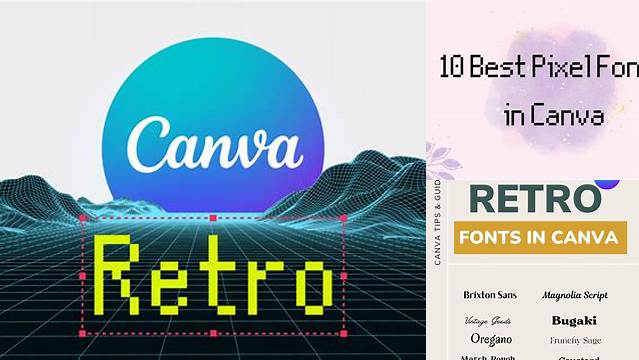
Best Pixel Fonts In Canva: A Retro Design Guide
Hey guys! Are you looking to infuse your designs with a touch of retro charm? Then you've come to the right place! In this article, we're diving deep into the world of pixel fonts, those wonderfully blocky and nostalgic typefaces that instantly transport us back to the golden age of 8-bit video games and early computer interfaces. And guess what? We're focusing on the best pixel fonts you can use right inside Canva, the super popular and user-friendly design platform. So, buckle up and get ready to pixelate your projects!
What are Pixel Fonts and Why Use Them?
Pixel fonts, also known as bitmap fonts, are digital typefaces where each character is composed of individual pixels. This gives them that distinctive blocky, low-resolution appearance that we associate with retro technology. The magic of pixel fonts lies in their ability to evoke a specific era and aesthetic. Think classic video game titles, old-school computer interfaces, and the early days of the internet. By incorporating pixel fonts into your designs, you can instantly tap into these nostalgic feelings and create a unique visual identity.
When you think about why use pixel fonts, several compelling reasons come to mind. First and foremost, they're fantastic for creating a retro or vintage vibe. If you're designing a poster for an 80s-themed party, a logo for a gaming website, or a social media graphic that screams old-school cool, a pixel font is your best friend. Secondly, pixel fonts can add a touch of playfulness and quirkiness to your designs. Their blocky nature and inherent simplicity make them a fun and approachable choice for projects that need a bit of personality. Furthermore, pixel fonts can be incredibly effective for conveying technical or digital themes. If you're designing a website or app interface, or creating graphics related to technology or coding, a pixel font can help reinforce that connection. In addition, using pixel fonts in your designs helps you stand out. In a world saturated with sleek, modern fonts, a pixel font can be a refreshing and eye-catching alternative. It's a great way to grab attention and make a lasting impression. These fonts can also be incredibly versatile. While they're often associated with retro designs, they can also be used in more contemporary contexts to add a touch of irony or contrast. Imagine a sleek, minimalist website with a pixel font used for the headings – it's an unexpected and memorable combination. Finally, pixel fonts can be a great way to pay homage to the history of graphic design and digital culture. They're a visual reminder of the early days of computing and gaming, and using them in your designs can be a nod to that legacy.
To make the most of pixel fonts, you need to consider their legibility. Due to their low-resolution nature, they can be challenging to read at small sizes. Therefore, it's generally best to use them for headlines, logos, or other display elements where the text is larger. Avoid using pixel fonts for long blocks of body text, as this can strain the reader's eyes. The best way to improve legibility is by playing with spacing, sizing, and color contrasts. Give your letters room to breathe. Increase the letter spacing and line height to prevent the characters from crowding each other. A clear visual contrast between the font color and the background is also essential. Avoid using similar colors, as this can make the text difficult to read. Think about the overall tone and message of your design when choosing a pixel font. Some pixel fonts have a more playful and whimsical feel, while others are more serious and technical. Select a font that aligns with the overall aesthetic you're trying to achieve. Don't be afraid to experiment. Try different pixel fonts in your designs and see what works best. You might be surprised at the unique and creative combinations you can come up with. One of the best aspects of using pixel fonts in Canva is the ease of experimentation. With a simple click, you can try different fonts and immediately see how they look in your design. This makes it easy to fine-tune your choices and create the perfect pixelated masterpiece.
Top Pixel Fonts Available in Canva
Now, let's get to the fun part: exploring the best pixel fonts that Canva has to offer! Canva boasts a fantastic library of fonts, including a solid selection of pixelated options that are perfect for your retro-inspired projects. Here are some of my absolute favorites, categorized for your convenience:
Classic & Clean Pixel Fonts
Press Start 2P: This is arguably the quintessential pixel font, instantly recognizable from countless video game title screens. It's clean, bold, and highly legible, making it a great choice for headlines, logos, and anything that needs a strong retro statement. The Press Start 2P font is a staple in the pixel font world, and for good reason. Its classic design is instantly recognizable and evokes a sense of nostalgia for the golden age of video games. The bold, blocky letters are highly legible, making it suitable for a wide range of applications, from headlines and logos to website banners and social media graphics. One of the key strengths of Press Start 2P is its versatility. While it's undeniably retro, it can also be used in more contemporary designs to add a touch of playfulness or irony. Imagine using it for the title of a modern mobile app, or for the branding of a tech startup. The contrast between the old-school font and the cutting-edge context can create a unique and memorable visual identity. Another great aspect of Press Start 2P is its availability. It's a Google Font, which means it's free to use for both personal and commercial projects. This makes it an accessible choice for designers of all levels, from students and hobbyists to professionals. And, of course, it's readily available in Canva, making it easy to incorporate into your designs with just a few clicks. When using Press Start 2P, consider the overall tone and message of your design. It's a font that commands attention, so it's best suited for projects where you want to make a bold statement. Avoid using it for long blocks of body text, as its blocky nature can be tiring to read in large quantities. Instead, use it sparingly for headlines, subheadings, and other display elements. You can also experiment with different color combinations and background treatments to enhance the impact of Press Start 2P. Try pairing it with vibrant colors and geometric shapes for a truly retro feel, or use it in a monochrome design for a more modern and minimalist look. The possibilities are endless!
VT323: If you're aiming for that authentic computer terminal look, VT323 is your go-to font. It's slightly more condensed than Press Start 2P, giving it a more technical and utilitarian vibe. This VT323 font nails the old-school computer terminal look. It's like looking at text straight from a vintage monitor! The font's slightly condensed design gives it a technical and utilitarian feel, perfect for projects that need a touch of digital authenticity. Think about using VT323 for a website that mimics a command-line interface or for graphics related to cybersecurity or programming. It instantly evokes a sense of the early days of computing, making it a powerful tool for creating a nostalgic or tech-focused aesthetic. One of the great things about VT323 is its clarity. Despite its pixelated appearance, the letters are surprisingly legible, especially at larger sizes. This makes it suitable for headlines, subheadings, and other display elements where you want to make a statement without sacrificing readability. However, like most pixel fonts, it's best to avoid using VT323 for long blocks of body text, as this can strain the reader's eyes. Instead, use it sparingly and strategically to create visual impact. When incorporating VT323 into your designs, consider the context and the overall message you want to convey. It's a font that speaks to a specific era and aesthetic, so it's important to ensure that it aligns with your project's goals. If you're aiming for a purely retro look, pair VT323 with other vintage design elements, such as 8-bit graphics, scanlines, and vibrant color palettes. On the other hand, if you want to create a more contemporary design with a retro twist, you can combine VT323 with modern fonts and design techniques. The contrast between the old and the new can be surprisingly effective. VT323 is also a versatile font in terms of its applications. While it's often used for tech-related projects, it can also be used for gaming graphics, posters, and even logos. Its unique appearance makes it a memorable choice for branding, especially for companies that want to convey a sense of innovation and technological expertise. So, if you're looking for a pixel font that's both authentic and versatile, VT323 is definitely worth considering. Its classic computer terminal look will add a touch of retro charm to your designs, while its clarity and legibility ensure that your message is conveyed effectively.
Fira Code: Okay, Fira Code isn't strictly a pixel font, but it's a monospaced font designed for coding, and its clean, geometric style fits the pixel aesthetic beautifully. Plus, it has ligatures, which are fancy character combinations that make code look even cooler! While Fira Code might not be a traditional pixel font, its monospaced design and clean, geometric style make it a perfect fit for the pixel aesthetic. Think of it as a modern twist on the classic pixel font, blending the retro vibe with contemporary functionality. What truly sets Fira Code apart is its ligatures – those fancy character combinations that make code look not only readable but also visually appealing. Ligatures transform common coding sequences like
=>,!=, and===into single, connected glyphs, making the code cleaner and easier to scan. This is a game-changer for developers and designers who want to create coding-related visuals that are both professional and stylish. But Fira Code's appeal extends beyond the coding world. Its clean lines and geometric shapes make it a versatile choice for a wide range of design projects. You can use it for headlines, subheadings, and even short paragraphs of text, especially if you want to convey a sense of precision and technical sophistication. Imagine using Fira Code for the branding of a tech startup, the interface of a software application, or the graphics for a cybersecurity conference. Its modern pixel-like appearance will add a touch of cutting-edge style to your designs. One of the key advantages of Fira Code is its legibility. Despite its monospaced nature, the letters are well-defined and easy to read, even at smaller sizes. This is crucial for coding environments, where clarity is paramount. However, it also makes Fira Code a practical choice for other applications where readability is important, such as website navigation menus and mobile app interfaces. When using Fira Code, consider the context and the overall message you want to communicate. It's a font that conveys a sense of technical expertise and precision, so it's best suited for projects that align with these values. Pair it with other modern design elements, such as clean layouts, minimalist color palettes, and geometric shapes, to create a cohesive and professional look. Fira Code is also a great choice for creating a sense of nostalgia for the early days of computing. Its monospaced design is reminiscent of old-school terminals and code editors, making it a powerful tool for evoking a retro vibe. You can use it in combination with other pixel fonts to create a layered and visually interesting effect. So, if you're looking for a font that bridges the gap between the retro pixel aesthetic and modern design sensibilities, Fira Code is an excellent option. Its clean lines, geometric shapes, and ligatures make it a versatile choice for a wide range of projects, from coding-related visuals to branding and website design.
Bold & Playful Pixel Fonts
Luckiest Guy: This font isn't strictly pixelated, but its blocky, cartoonish style gives it a similar vibe. It's perfect for adding a fun, lighthearted touch to your designs. Luckiest Guy might not be a true pixel font in the traditional sense, but its blocky, cartoonish style gives it a similar vibe, making it a fantastic choice for projects that need a dose of fun and playfulness. Think of it as a pixel font's quirky cousin, bringing a touch of whimsy and lightheartedness to your designs. One of the defining characteristics of Luckiest Guy is its bold and chunky letters. They have a strong visual presence that instantly grabs attention, making it an ideal font for headlines, logos, and other display elements. Its playful nature makes it particularly well-suited for projects targeted at children or those with a youthful spirit. Imagine using Luckiest Guy for a children's book cover, a birthday party invitation, or the branding of a toy store. Its cheerful appearance will instantly create a positive and engaging impression. But Luckiest Guy's versatility extends beyond purely playful applications. It can also be used in more serious contexts to add a touch of personality and approachability. For example, you might use it for the headings on a website for a non-profit organization or for the graphics of a social media campaign aimed at raising awareness about a cause. Its friendly and inviting nature can help to break down barriers and connect with your audience on a more personal level. When incorporating Luckiest Guy into your designs, consider the overall tone and message you want to convey. It's a font that exudes positivity and enthusiasm, so it's best suited for projects that align with these values. Pair it with bright colors, fun illustrations, and other playful design elements to create a cohesive and engaging visual experience. You can also experiment with different font sizes and weights to create visual hierarchy and emphasis. While Luckiest Guy is primarily a display font, it can also be used for short paragraphs of text, especially if you want to add a touch of whimsy to your writing. Just be sure to use it sparingly, as its blocky nature can become tiring to read in large quantities. Luckiest Guy is a great choice for adding a unique and memorable touch to your designs. Its bold, cartoonish style is sure to make a lasting impression on your audience.
Bubblegum Sans: Another font that leans into the playful side, Bubblegum Sans has rounded edges and a slightly bubbly appearance, making it a great choice for friendly and approachable designs. Bubblegum Sans is another gem in the realm of playful fonts, boasting rounded edges and a slightly bubbly appearance that makes it an excellent choice for designs that need a friendly and approachable touch. Think of it as the font that gives your designs a warm hug, inviting your audience in with its cheerful and welcoming demeanor. One of the key characteristics of Bubblegum Sans is its soft and gentle curves. Unlike the sharp angles of more traditional fonts, Bubblegum Sans features rounded edges that create a sense of smoothness and flow. This makes it particularly well-suited for projects that aim to evoke feelings of warmth, comfort, and happiness. Imagine using Bubblegum Sans for the branding of a bakery, a children's clothing store, or a yoga studio. Its friendly appearance will instantly create a positive and inviting atmosphere. But Bubblegum Sans's versatility extends beyond purely feel-good applications. It can also be used in more serious contexts to add a touch of approachability and human connection. For example, you might use it for the headings on a website for a mental health organization or for the graphics of a campaign promoting kindness and empathy. Its gentle and inviting nature can help to break down barriers and create a sense of trust with your audience. When incorporating Bubblegum Sans into your designs, consider the overall tone and message you want to convey. It's a font that exudes positivity and warmth, so it's best suited for projects that align with these values. Pair it with soft colors, gentle illustrations, and other elements that evoke feelings of comfort and happiness. You can also experiment with different font sizes and weights to create visual hierarchy and emphasis. While Bubblegum Sans is primarily a display font, it can also be used for short paragraphs of text, especially if you want to add a touch of playfulness to your writing. Just be sure to use it sparingly, as its bubbly nature can become tiring to read in large quantities. Bubblegum Sans is a fantastic choice for adding a unique and memorable touch to your designs. Its rounded edges and friendly appearance are sure to make a lasting impression on your audience, leaving them with a feeling of warmth and happiness.
Unique & Quirky Pixel Fonts
Russo One: This font has a bold, geometric style with slightly rounded corners, giving it a unique and modern pixelated look. While not a traditional pixel font, it fits the aesthetic nicely. Russo One stands out with its bold, geometric style and slightly rounded corners, giving it a unique and modern pixelated look. It's not your typical pixel font, but it definitely fits the aesthetic nicely, blending the retro vibe with a contemporary feel. Think of it as the pixel font that went to design school and came back with a fresh, sophisticated look. One of the key characteristics of Russo One is its strong and confident presence. The bold, geometric letters command attention, making it an excellent choice for headlines, logos, and other display elements where you want to make a statement. Its modern pixelated look gives it a unique edge, setting it apart from more traditional pixel fonts. Imagine using Russo One for the branding of a tech startup, the website of a creative agency, or the graphics for a music festival. Its bold and contemporary style will help you create a visual identity that is both memorable and impactful. But Russo One's versatility extends beyond purely modern applications. It can also be used in projects that aim to evoke a sense of nostalgia or retro-futurism. Its pixelated look gives it a connection to the early days of computing and gaming, while its geometric shapes and rounded corners add a touch of contemporary flair. When incorporating Russo One into your designs, consider the overall tone and message you want to convey. It's a font that exudes confidence and innovation, so it's best suited for projects that align with these values. Pair it with clean layouts, bold colors, and other modern design elements to create a cohesive and visually striking experience. You can also experiment with different font sizes and weights to create visual hierarchy and emphasis. While Russo One is primarily a display font, it can also be used for short paragraphs of text, especially if you want to add a touch of modernity to your writing. Just be sure to use it sparingly, as its bold nature can become tiring to read in large quantities. Russo One is a fantastic choice for adding a unique and memorable touch to your designs. Its bold, geometric style and modern pixelated look will help you create a visual identity that is both contemporary and impactful.
Arcade Normal: As the name suggests, this font is straight out of an old-school arcade game. It's bold, blocky, and perfect for creating that authentic 8-bit feel. Arcade Normal, as the name suggests, is like stepping straight into an old-school arcade game. It's bold, blocky, and perfectly captures that authentic 8-bit feel, making it an ideal choice for projects that want to evoke a sense of nostalgia and retro gaming culture. Think of it as the font that transports your audience back to the golden age of arcades, with its pixelated letters and classic video game vibe. One of the defining characteristics of Arcade Normal is its strong and assertive presence. The bold, blocky letters command attention, making it an excellent choice for headlines, logos, and other display elements where you want to make a statement. Its pixelated appearance is instantly recognizable as a nod to the early days of gaming, making it a powerful tool for creating a retro-themed design. Imagine using Arcade Normal for the branding of a gaming website, the poster for a retro gaming event, or the graphics for a video game stream. Its authentic arcade font style will instantly connect with your target audience and create a memorable visual identity. But Arcade Normal's versatility extends beyond purely gaming-related applications. It can also be used in projects that aim to evoke a sense of nostalgia or retro-futurism. Its pixelated look gives it a connection to the early days of computing and digital culture, making it a great choice for designs that want to capture that vintage aesthetic. When incorporating Arcade Normal into your designs, consider the overall tone and message you want to convey. It's a font that exudes energy and excitement, so it's best suited for projects that align with these values. Pair it with vibrant colors, 8-bit graphics, and other retro design elements to create a cohesive and visually engaging experience. You can also experiment with different font sizes and weights to create visual hierarchy and emphasis. While Arcade Normal is primarily a display font, it can also be used for short paragraphs of text, especially if you want to add a touch of retro charm to your writing. Just be sure to use it sparingly, as its blocky nature can become tiring to read in large quantities. Arcade Normal is a fantastic choice for adding a unique and memorable touch to your designs. Its bold, blocky style and authentic arcade font look will transport your audience back in time, creating a visual experience that is both nostalgic and exciting.
Tips for Using Pixel Fonts Effectively in Canva
Alright, now that you're armed with a list of amazing pixel fonts, let's talk about how to use them effectively in Canva. Pixel fonts, like any design element, require a bit of finesse to truly shine. Here are some tips to help you make the most of them:
- Size Matters: Pixel fonts often look best at larger sizes. Their blocky nature can make them difficult to read when they're too small. Experiment with different sizes to find the sweet spot where the font is legible but still retains its pixelated charm.
- Pairing is Key: Don't be afraid to pair pixel fonts with other fonts! A clean, sans-serif font can create a nice contrast with a pixelated headline, making your design more dynamic and visually interesting.
- Color Considerations: Choose colors that complement the retro aesthetic. Bright, vibrant colors like neon pink, electric blue, and lime green can work wonders with pixel fonts. But don't be afraid to experiment with more muted tones as well.
- Embrace the Pixels: Don't try to smooth out the edges of pixel fonts! The pixelated look is the whole point, so embrace the blockiness and let it shine.
- Context is Crucial: Consider the overall tone and message of your design. Pixel fonts are fantastic for retro and tech-themed projects, but they might not be the best choice for a formal or professional setting.